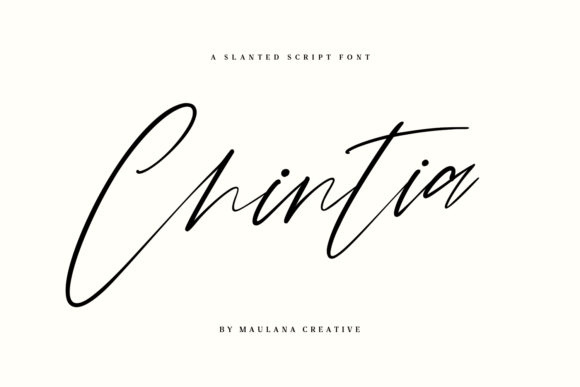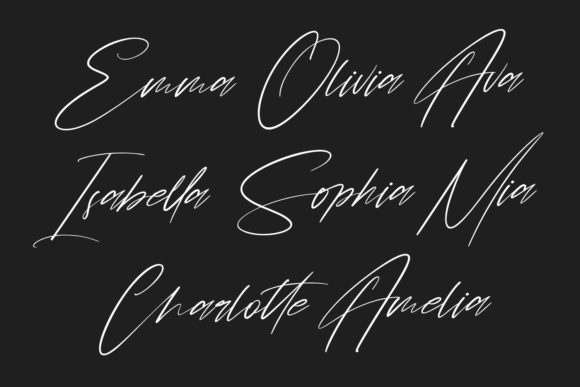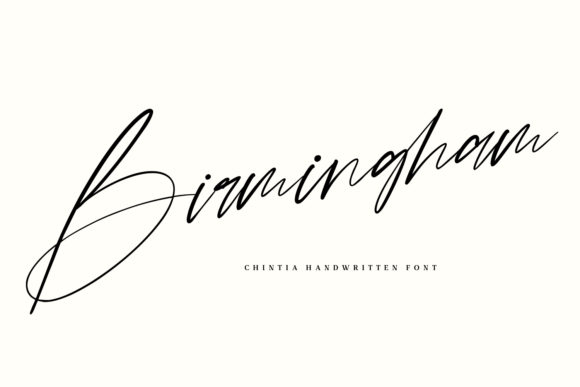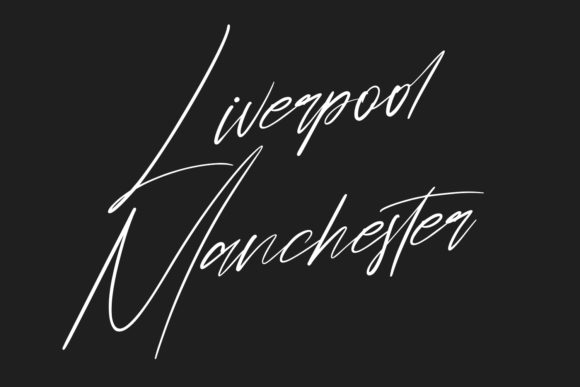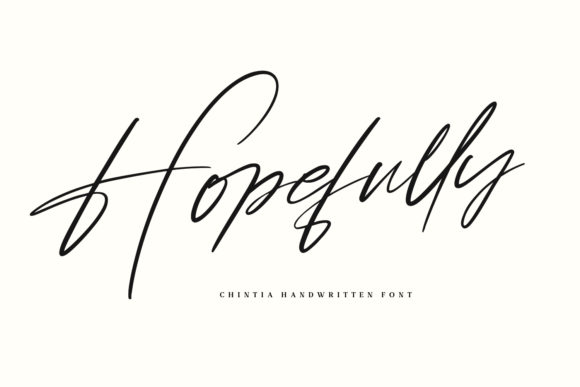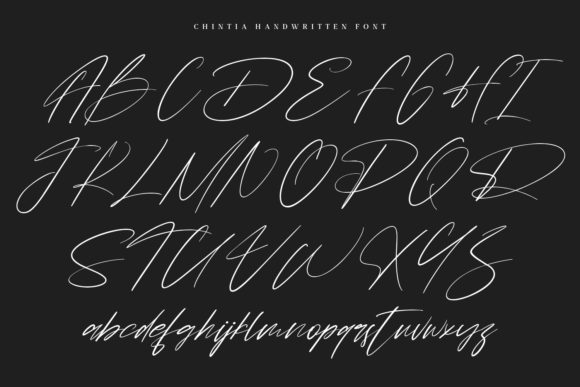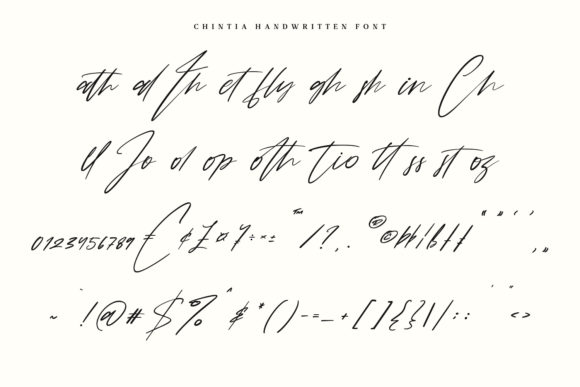
Chintia Font
About Chintia Font
Chintia feels equally charming and elegant. It features an incredibly classic style, while still keeping a friendly feel. Chintia is the perfect font for making original and outstanding designs.